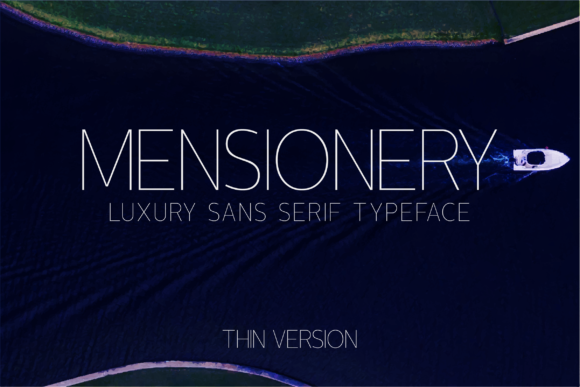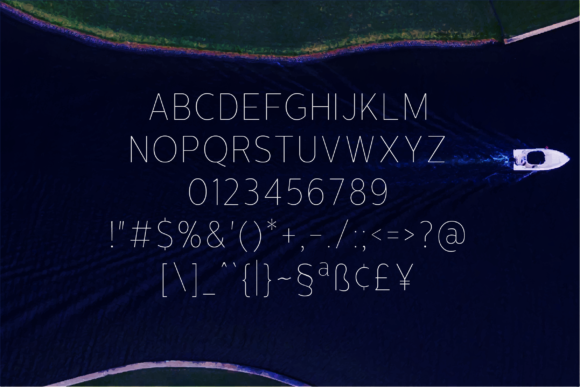
HomeSans Serif FontsMensionery Thin Font Sans Serif Fonts Mensionery Thin Font FacebookXPinterestWhatsApp Mensionery Thin Font 1 of 2 About Mensionery Thin Font Mensionery is a minimalistic, timeless, and stunning all caps sans serif font that looks beautiful in layouts, headers, web, and many other contexts. It comes in ten different weights! DOWNLOAD NOW People also explored Bella Bellivia Font Amsterdam Font Alisa Font Kolm Keltek Font Dutch Tulips Font Comic Play Font Shakila Font Qitamesa Script Font Lana Font 246 0 TagsMensionery Thin Font Previous articleBearbone Sans FontNext articleMensionery Extra Light Font LEAVE A REPLY Cancel reply Comment: Please enter your comment! Name:* Please enter your name here Email:* You have entered an incorrect email address! Please enter your email address here Website: Save my name, email, and website in this browser for the next time I comment. Personal Use Free Broodfath Personal Use Free Read more about this font Bosk Personal Use Free Read more about this font Vilsuve Personal Use Free Read more about this font Term Free Personal Use Free Read more about this font BLOG Fonts That Capture the Spirit of New York City New York City is more than just a place—it’s an experience, a rhythm, a visual language... Best Fonts for T-Shirt Design – Top 2025 Picks Using Fonts in Digital Marketing: Tips to Strengthen Your Brand Identity To increase your work productivity, choose the most readable fonts.